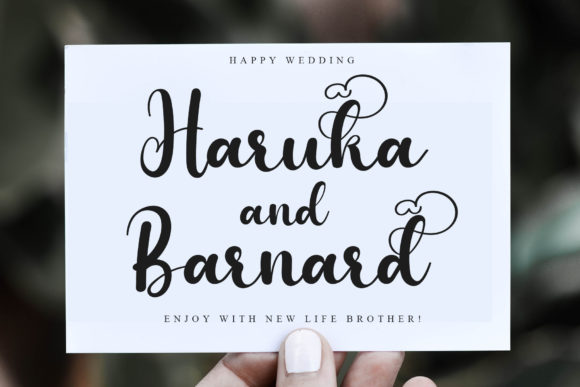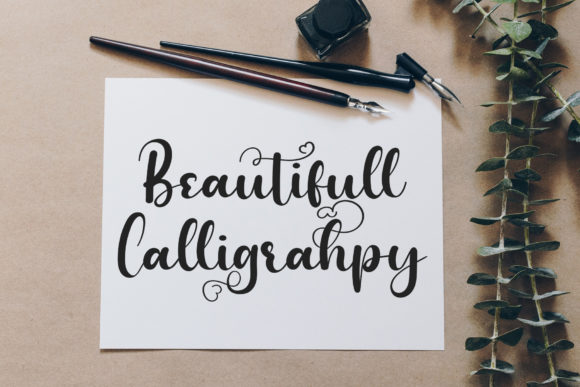
Master Sister Font
db-ku.com - Script & Handwritten -- Master Sister is a festive and sweet calligraphy typeface with characters that dance along the baseline. It will add a luxury spark to any design project that you wish to create!